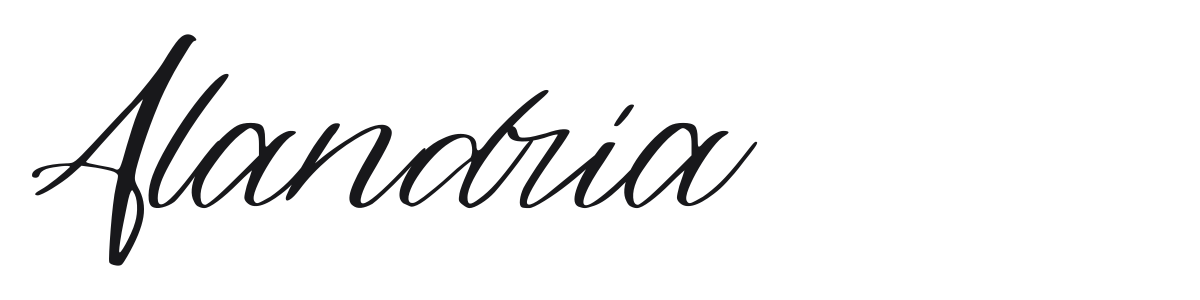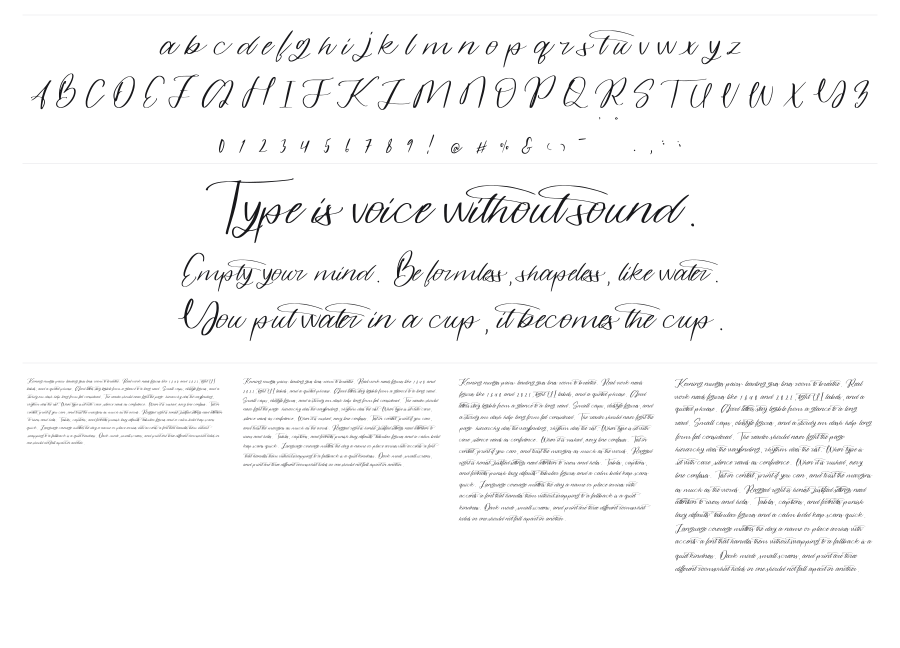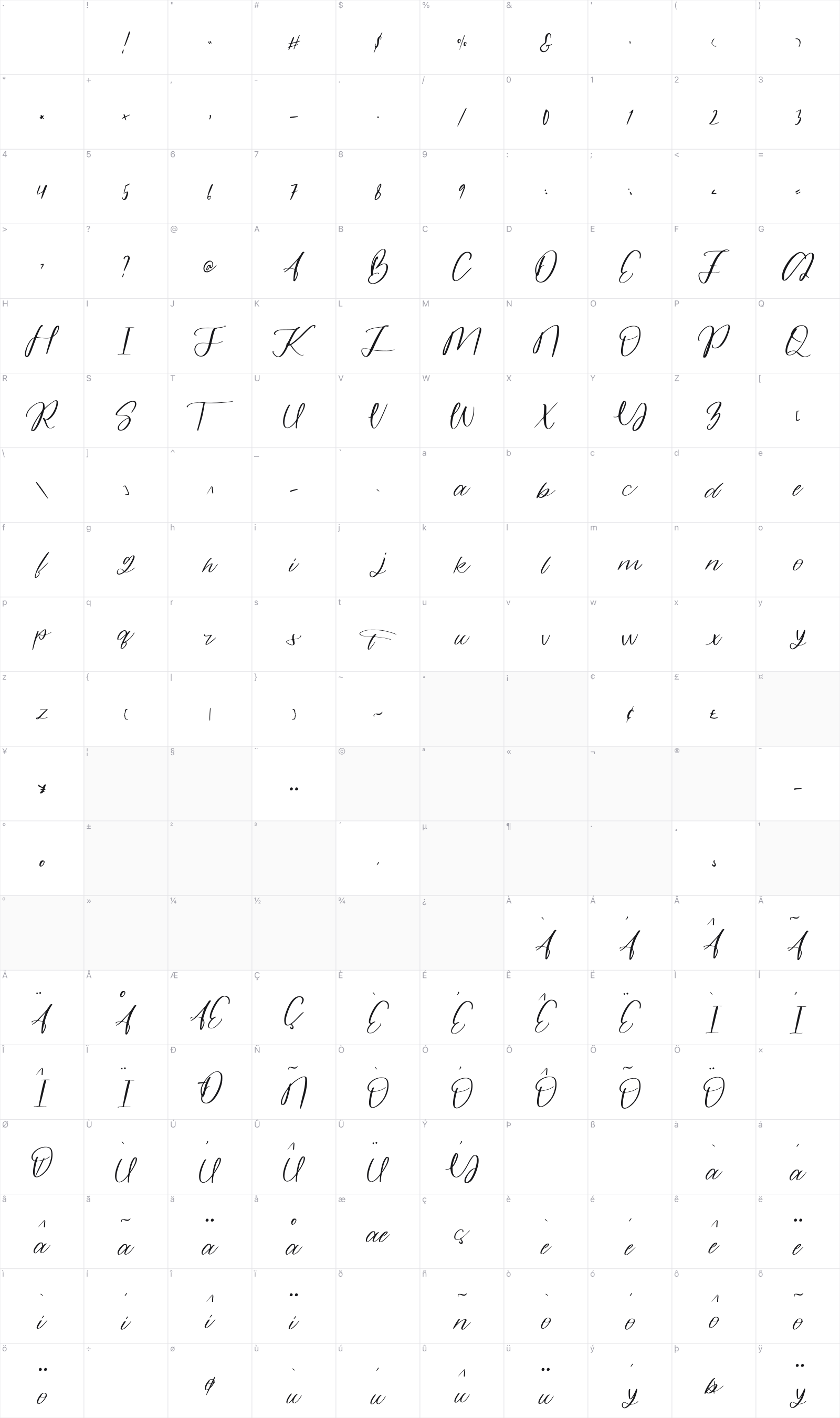
Alandria
Alandria is a flowing casual script built on expressive calligraphic strokes with strong contrast between hairline upstrokes and weighted downstrokes. Long swashes and looping connections give it a loose, hand-lettered energy that feels both romantic and contemporary. It works best at large sizes where the flourishes have room to breathe.